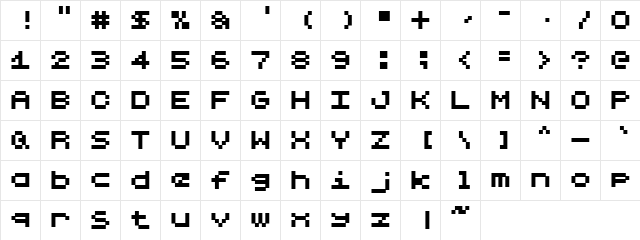
Lilliput Steps Regular
Lilliput Steps is a composed and adaptable typeface that performs quietly and consistently across a wide range of design contexts.